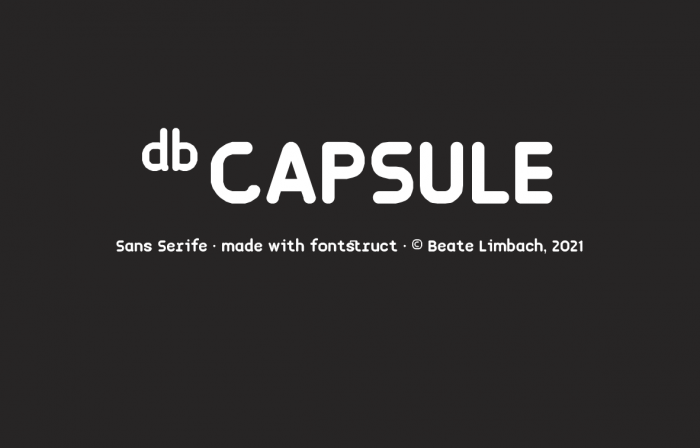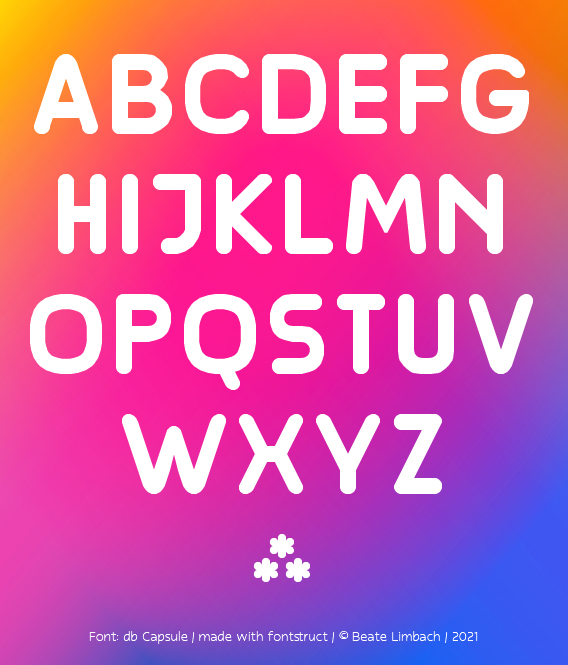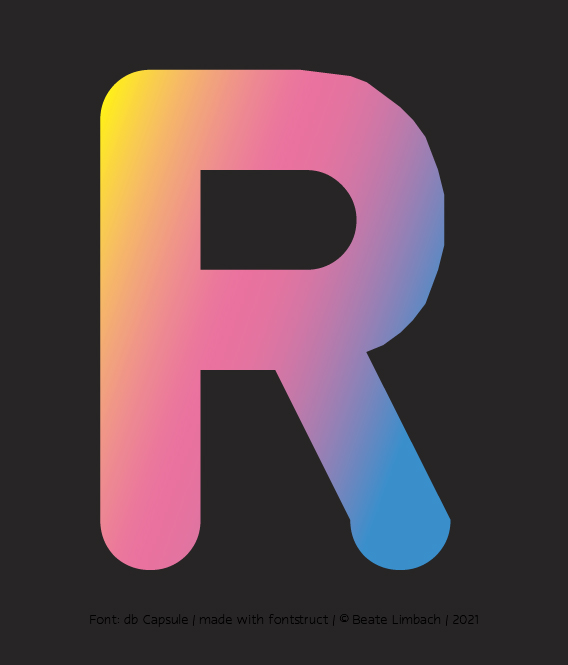
I really love this font. I even like the spurs on the lowercase d, g, and q, and how you distingushed the Capital I from the lowercase l… 11/10
I also found this random hole that probably shouldn't be there in the § (Where the red circle is in the sample)… I also noticed the accent was flipped in the lowercase ý, It should be an acute accent and not a grave accent…
Regarding db Capsule, I think there is still a lot to do...!
This font is still beautiful BTW.
Nice work. Let me add my vote as the 6th person. It might help to offset the troll damage. 10/10
what a simple font,
so simple, i'll give it a 9+♥